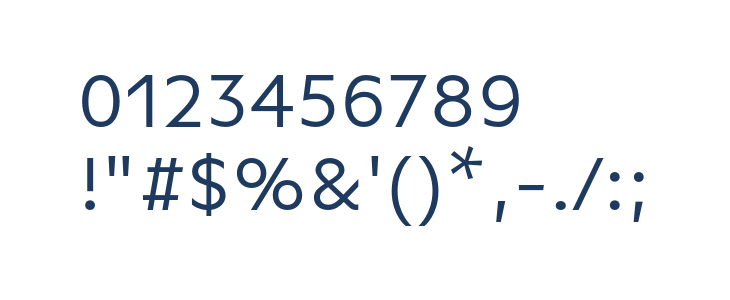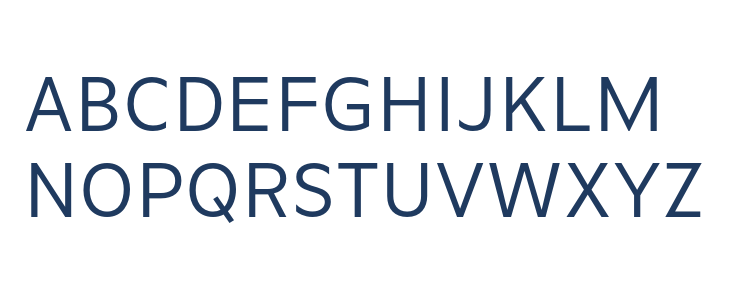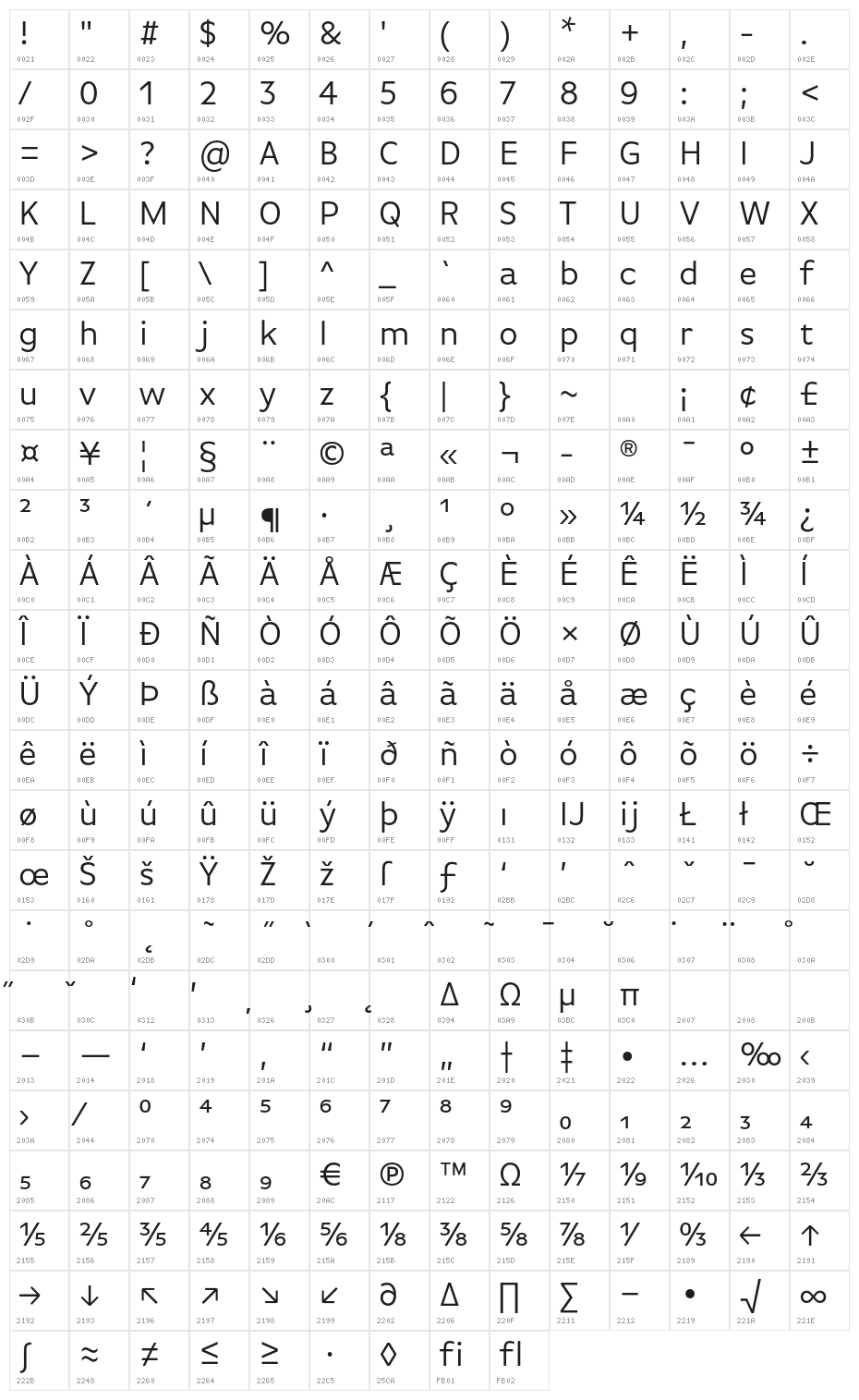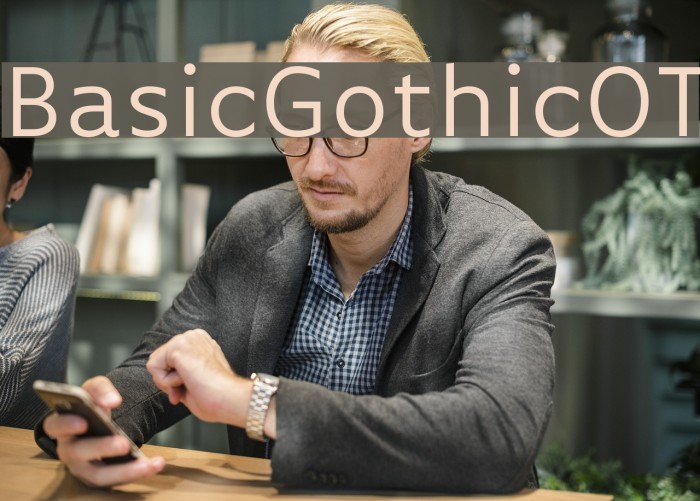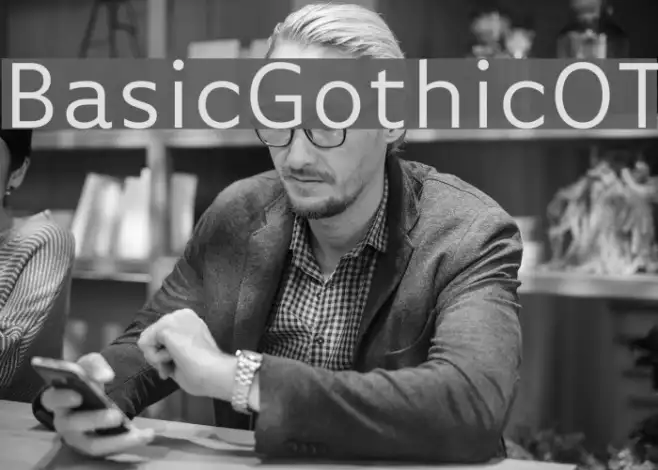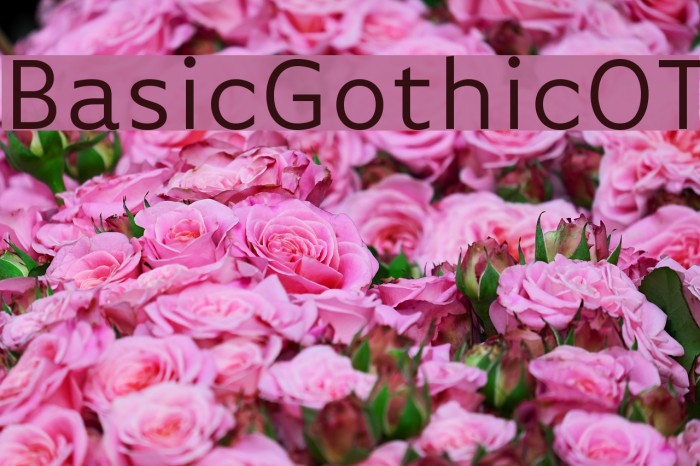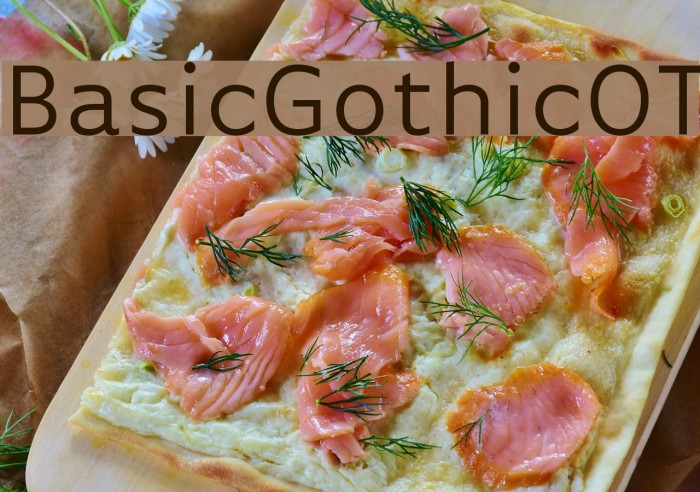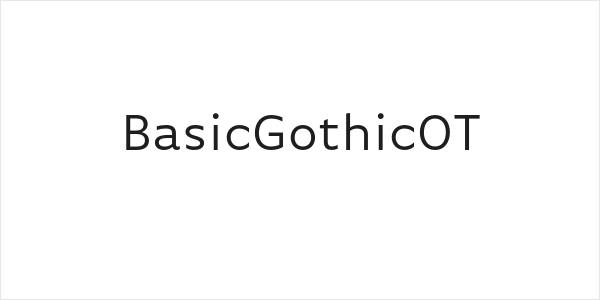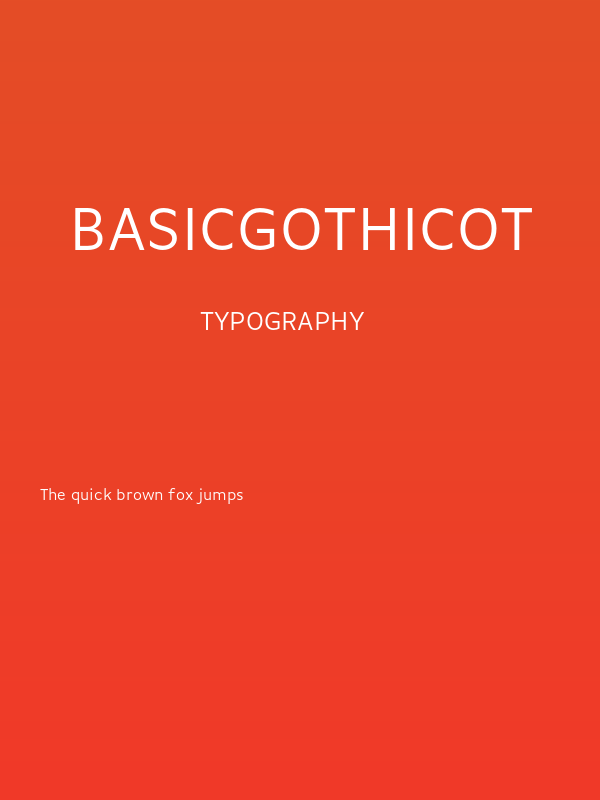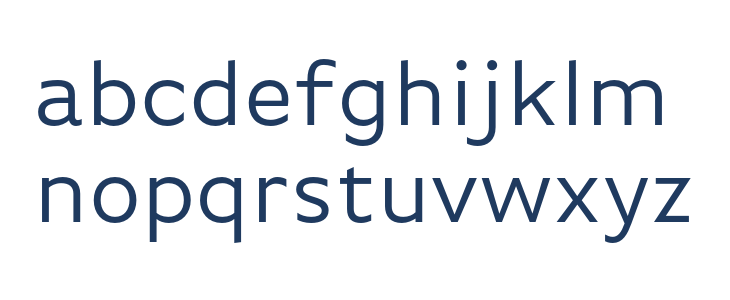
BasicGothicOT Font
BasicGothicOT Description
This font features a clean and modern sans-serif style, characterized by its simplicity and readability. The letters are evenly spaced with a consistent stroke width, providing a balanced and harmonious appearance. The uppercase letters are bold and assertive, while the lowercase letters maintain a friendly and approachable look. The numerals are clear and distinct, making them easy to read at various sizes. Special characters are well-integrated, ensuring versatility in different contexts. Overall, this font exudes a professional and contemporary vibe, suitable for a wide range of applications.